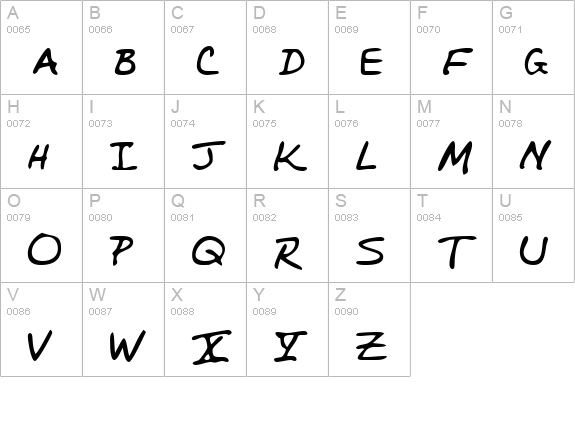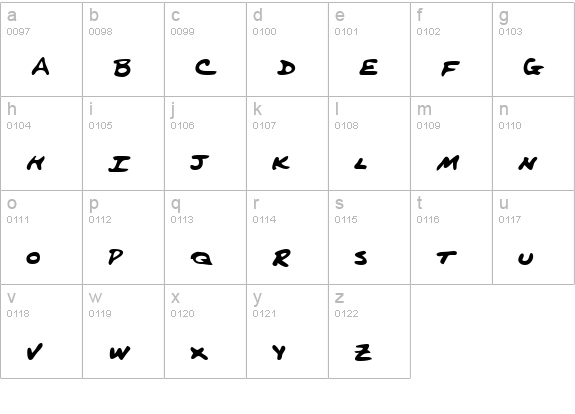
PerkinsHand Regular Font Details
PerkinsHand Regular is the standard, neutral variant in the PerkinsHand typeface family \xE2\x80\x94 well suited to general body text, paragraphs, and standard typographic work.
PerkinsHand Regular font is an exquisite and versatile typeface that exudes elegance and sophistication. With its clean lines and balanced proportions, this font is perfect for a wide range of design projects, from branding and logo design to print materials and digital presentations. The smooth curves and intricate details of PerkinsHand Regular font make it a delightful choice for both headings and body text. Its legibility ensures that your message will be clearly communicated, while its unique style adds a touch of personality and flair to any project. One of the most attractive features of PerkinsHand Regular font is that it is completely free to download. It is readily available at FontsMarket.com, a trusted source for high-quality fonts. This means that you can enhance your designs with this stunning font without any cost or hassle. Whether you are a graphic designer, a web developer, or simply someone who appreciates beautiful typography, PerkinsHand Regular font is a must-have addition to your font collection. Its versatility, elegance, and the fact that it is freely available make it a valuable resource for all your design needs. So go ahead and download PerkinsHand Regular font today from FontsMarket.com to elevate your designs to new heights of visual excellence.